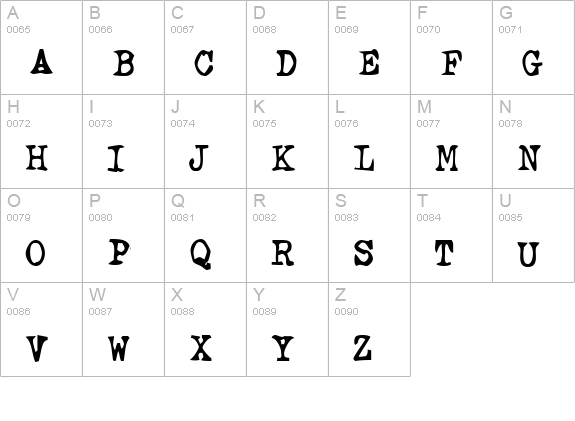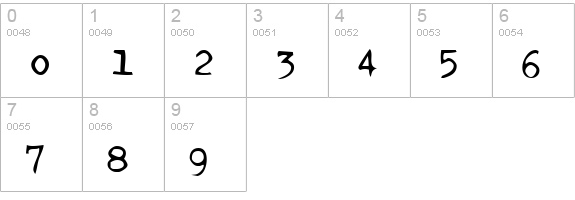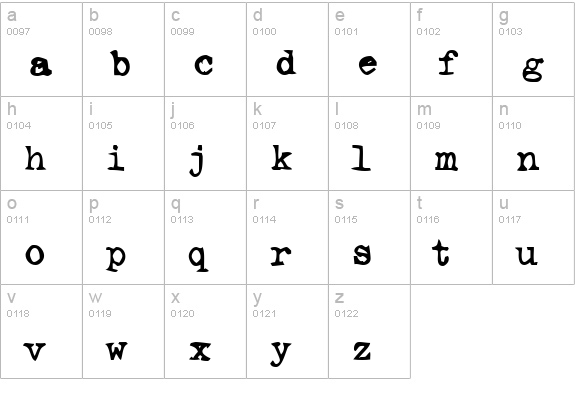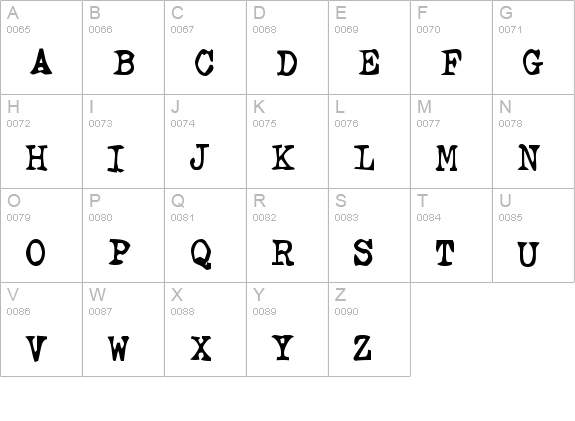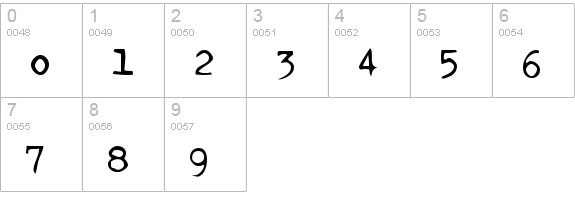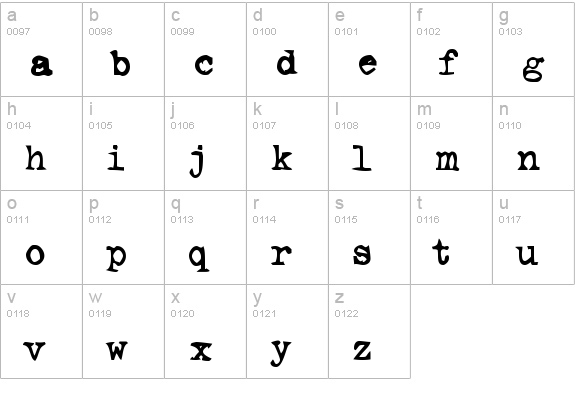
Ghostwriter Font Details
Introducing Ghostwriter font - a stunning typeface that captures the essence of mystery and elegance. This unique font exudes a hauntingly beautiful vibe, perfect for adding a touch of sophistication to your designs. With its delicate strokes and intricate details, Ghostwriter font is sure to make a lasting impression. What's even better is that Ghostwriter font is free to download at FontsMarket.com! Yes, you read that right - this exquisite font can be yours at no cost. So why wait? Enhance your projects with the ethereal beauty of Ghostwriter font today.